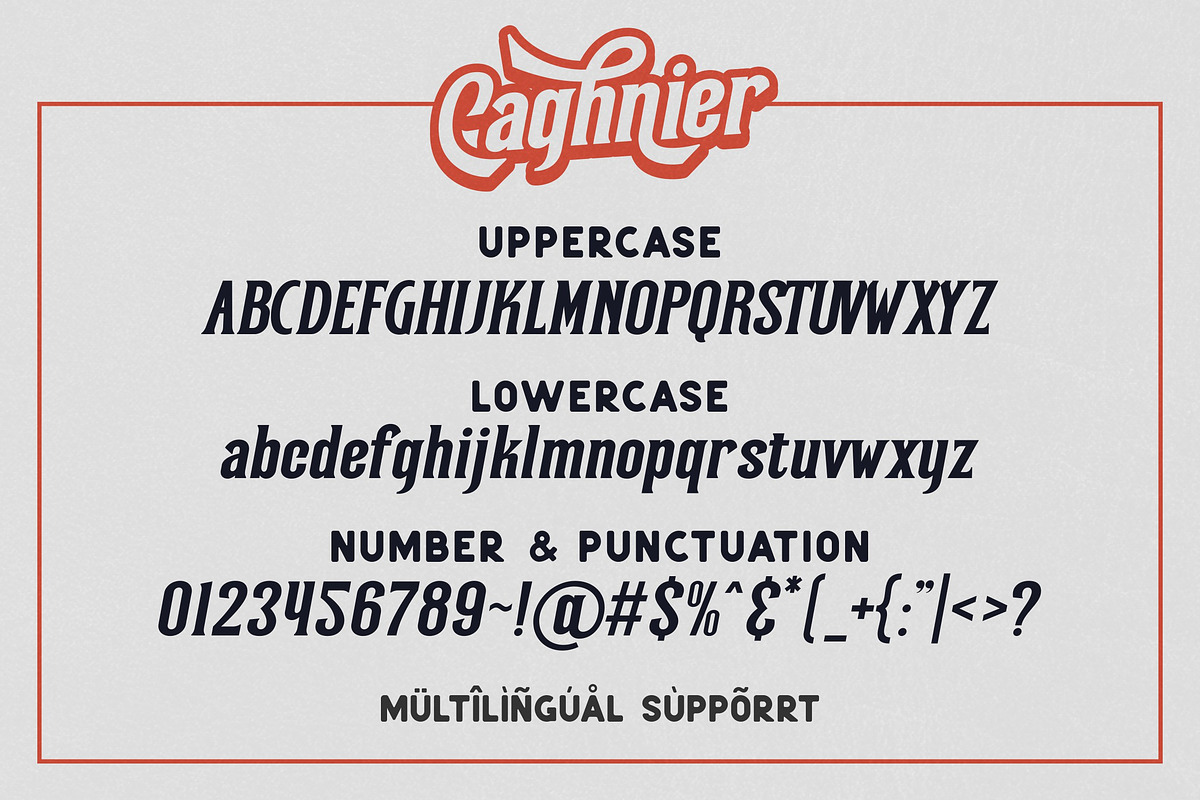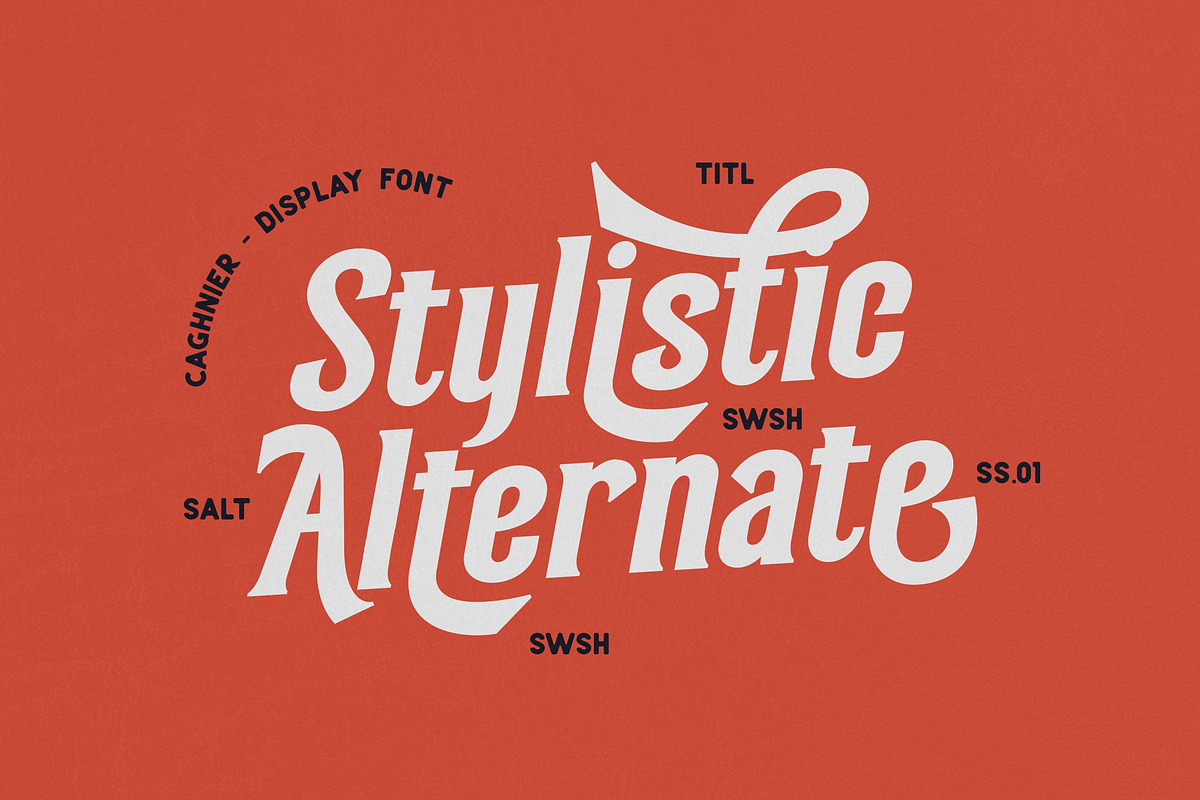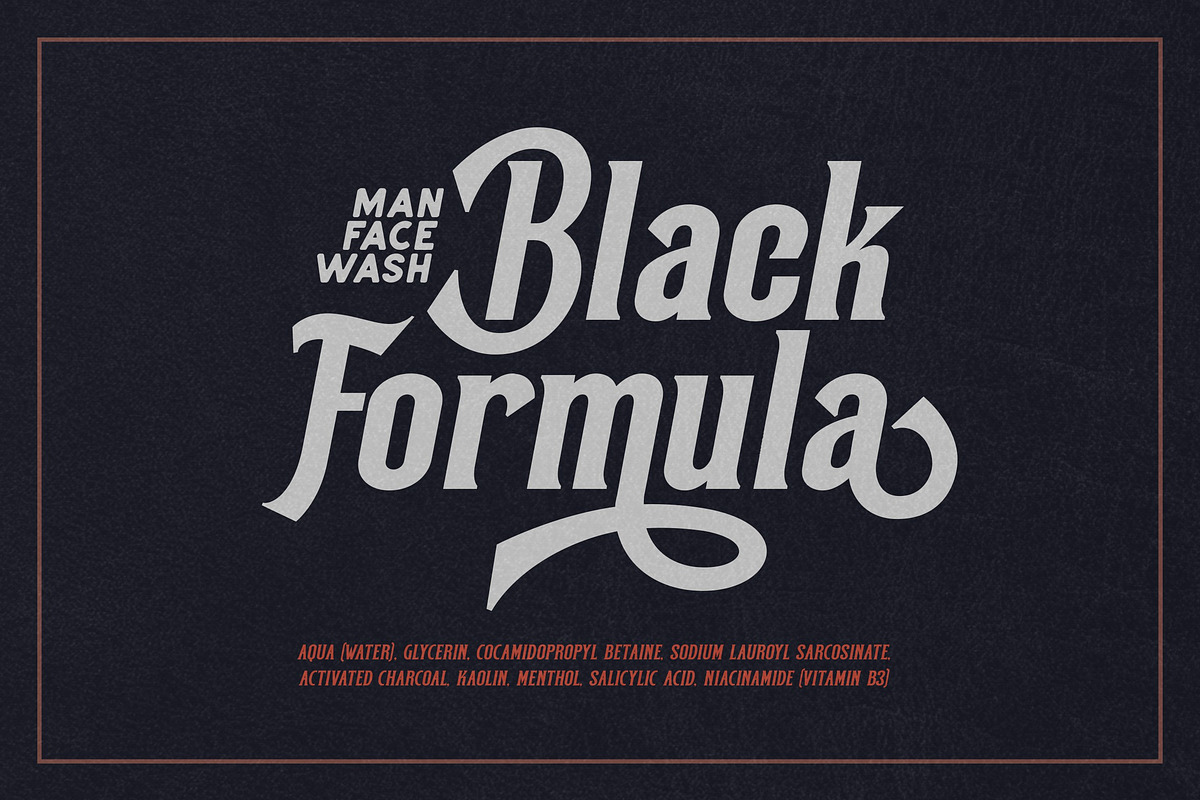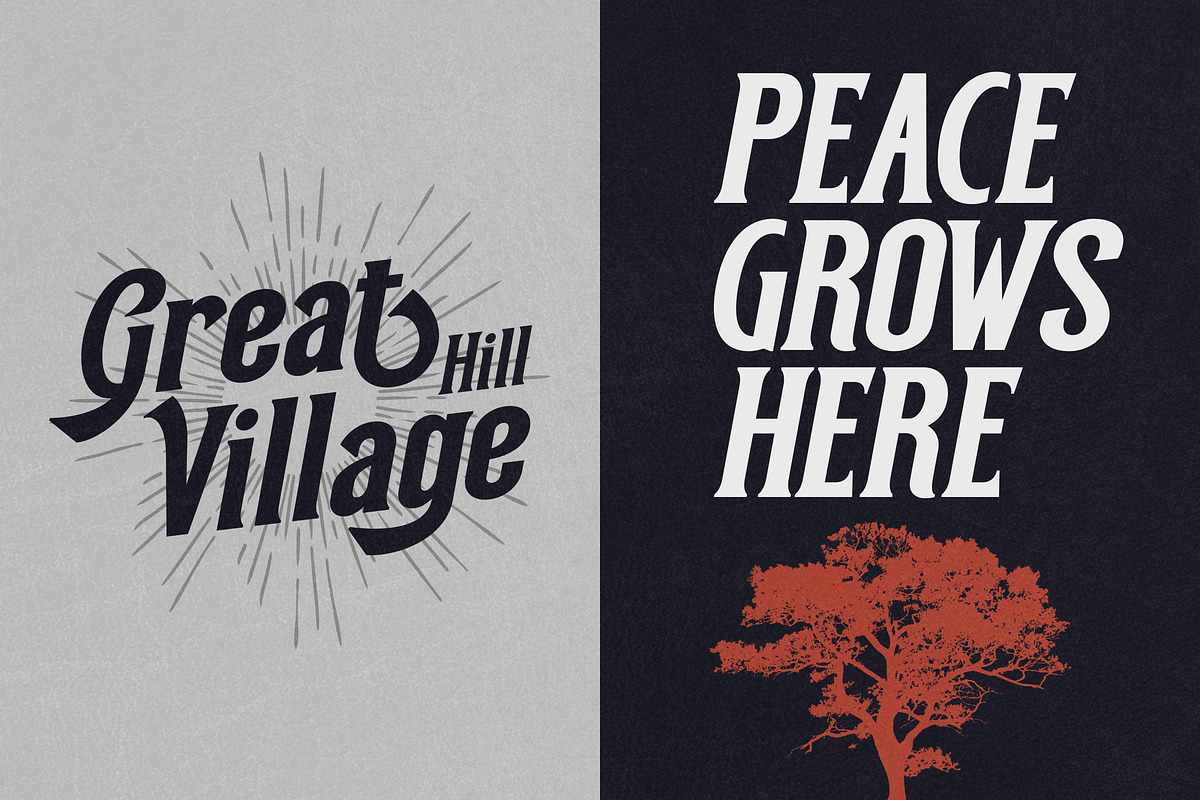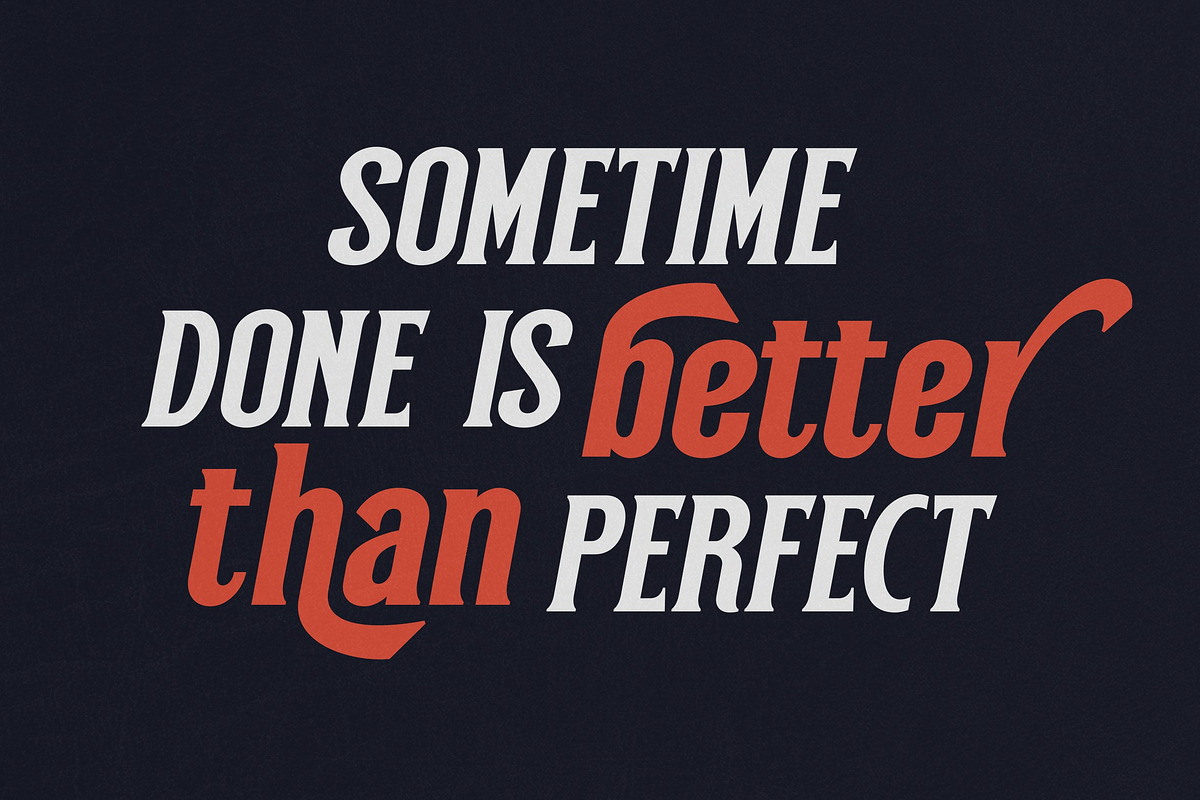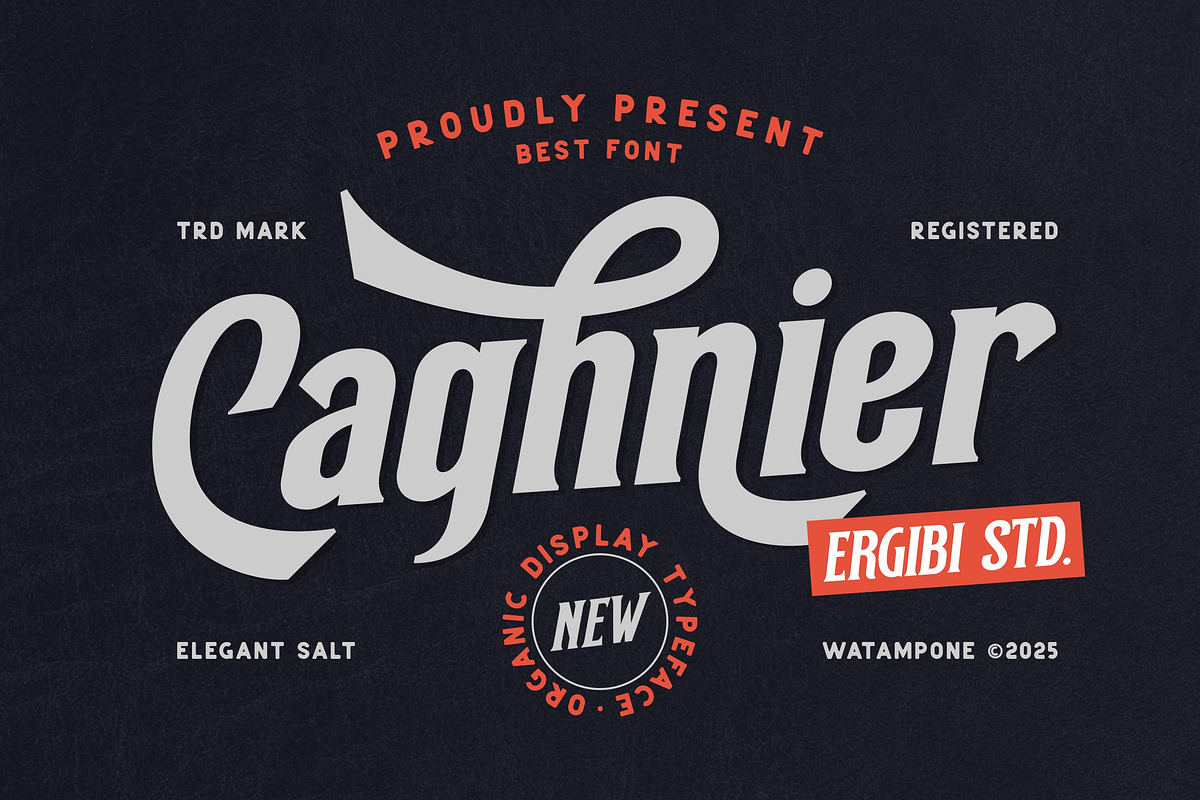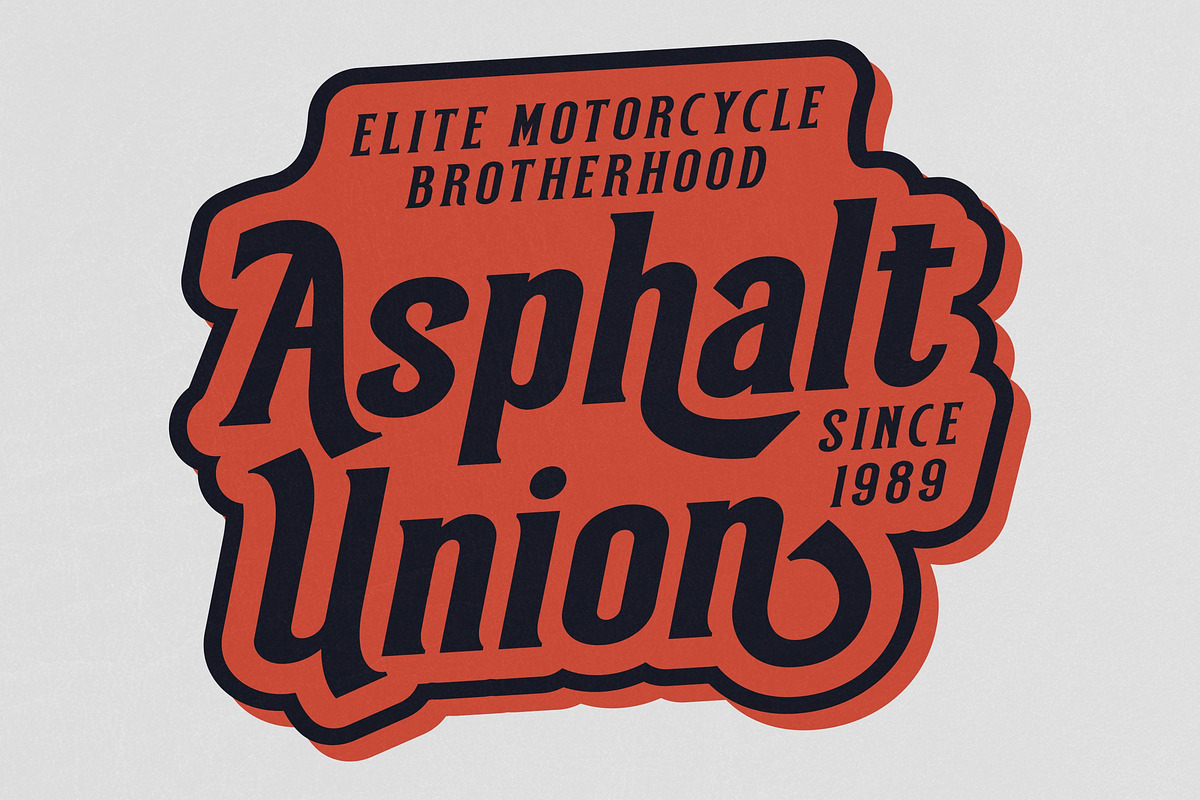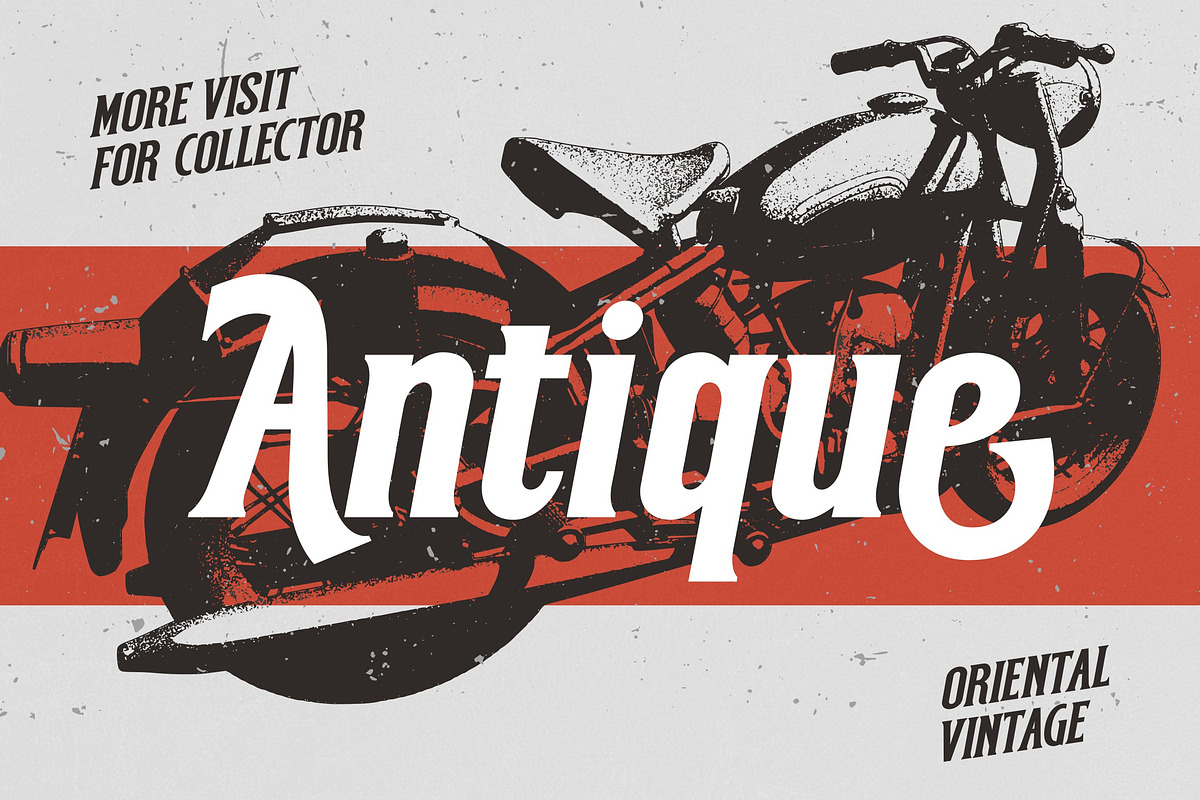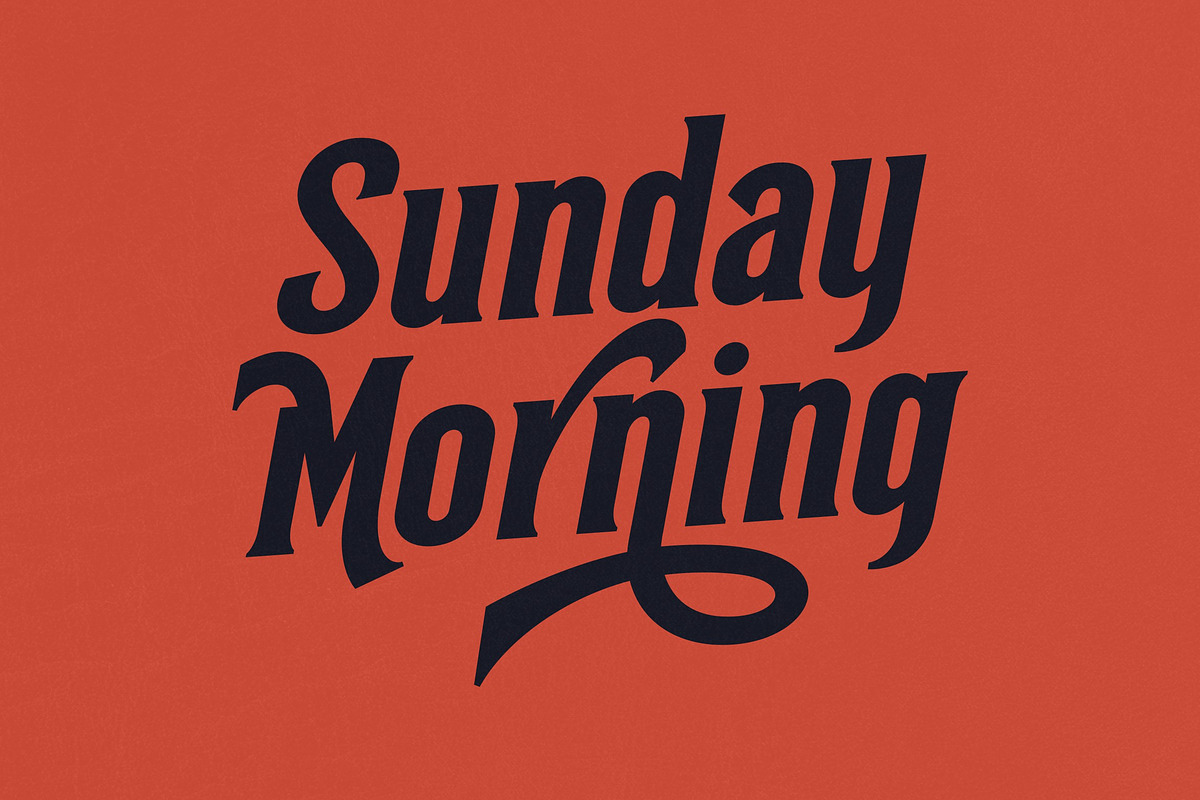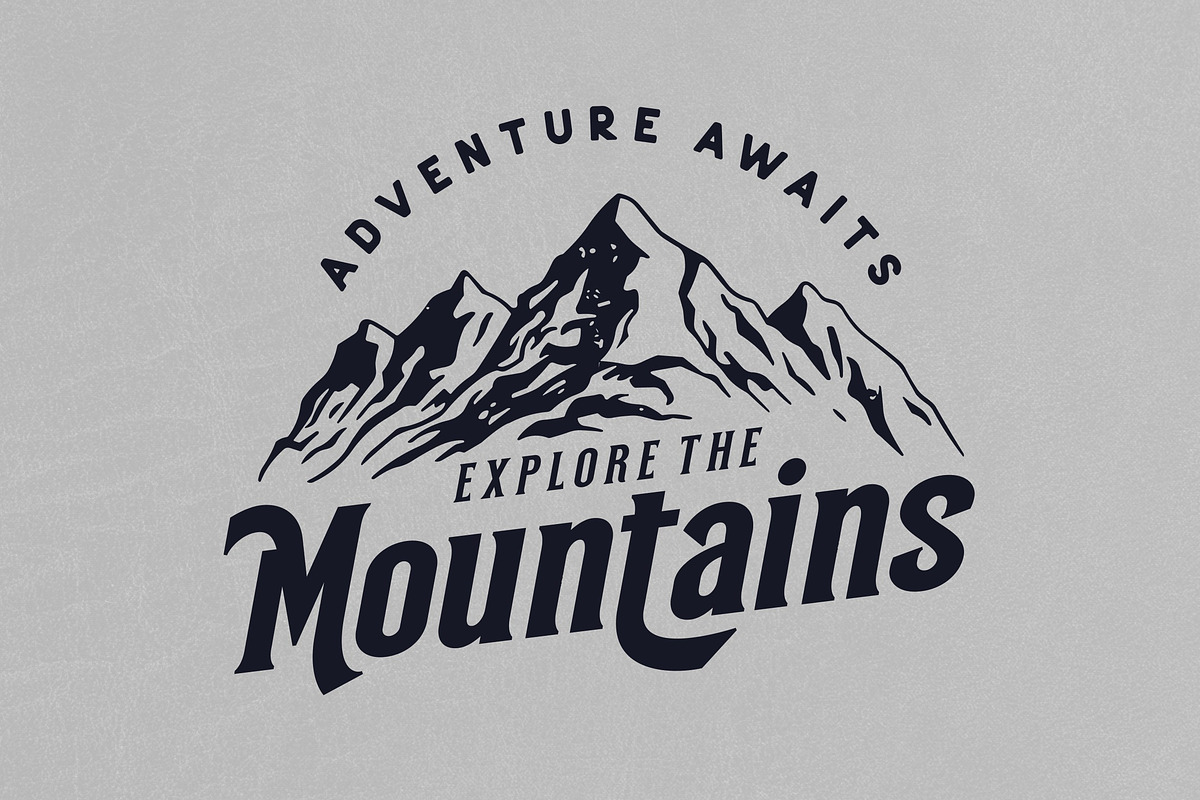
Caghnier - Display Serif
Step into a realm of refined artistry with Caghnier, a decorative serif font that merges timeless sophistication with elegant ornamental flair. Crafted for designers who value character and craftsmanship, Caghnier presents a graceful balance between classic serif structure and beautifully designed alternates that add a touch of distinction to every letterform.
Caghnier versatile serif foundation ensures excellent readability, while its ornamental alternates provide creative flexibility, making it ideal for headlines, logos, and display settings where elegance and uniqueness truly matter. Let Caghnier transform your design into a piece of art with its harmonious blend of tradition and sophistication.